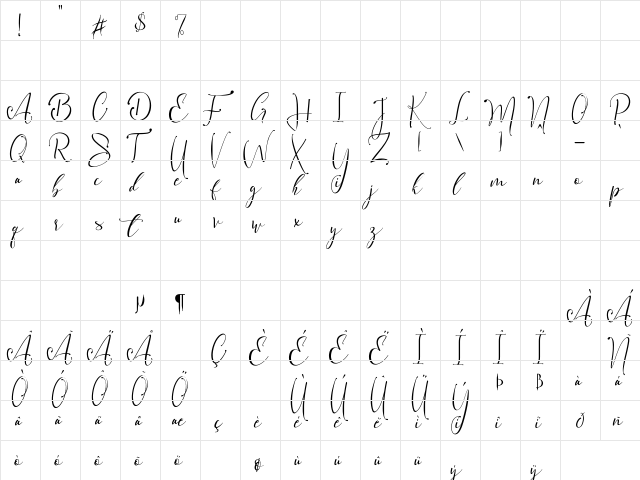
Vanilla Mermaid Regular
| Designer | Aldedesign 2018 |
Design Context for Vanilla Mermaid Typeface
Vanilla Mermaid is a composed and adaptable typeface that performs quietly and consistently across a wide range of design contexts.